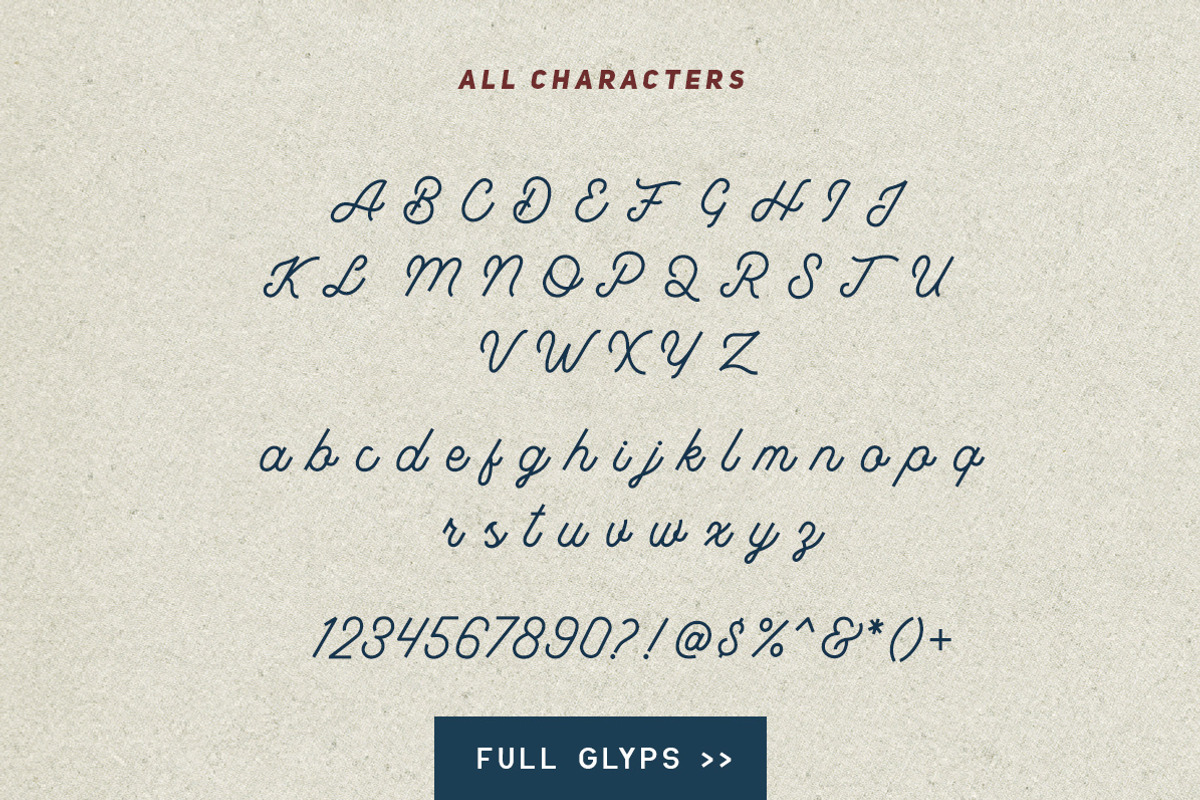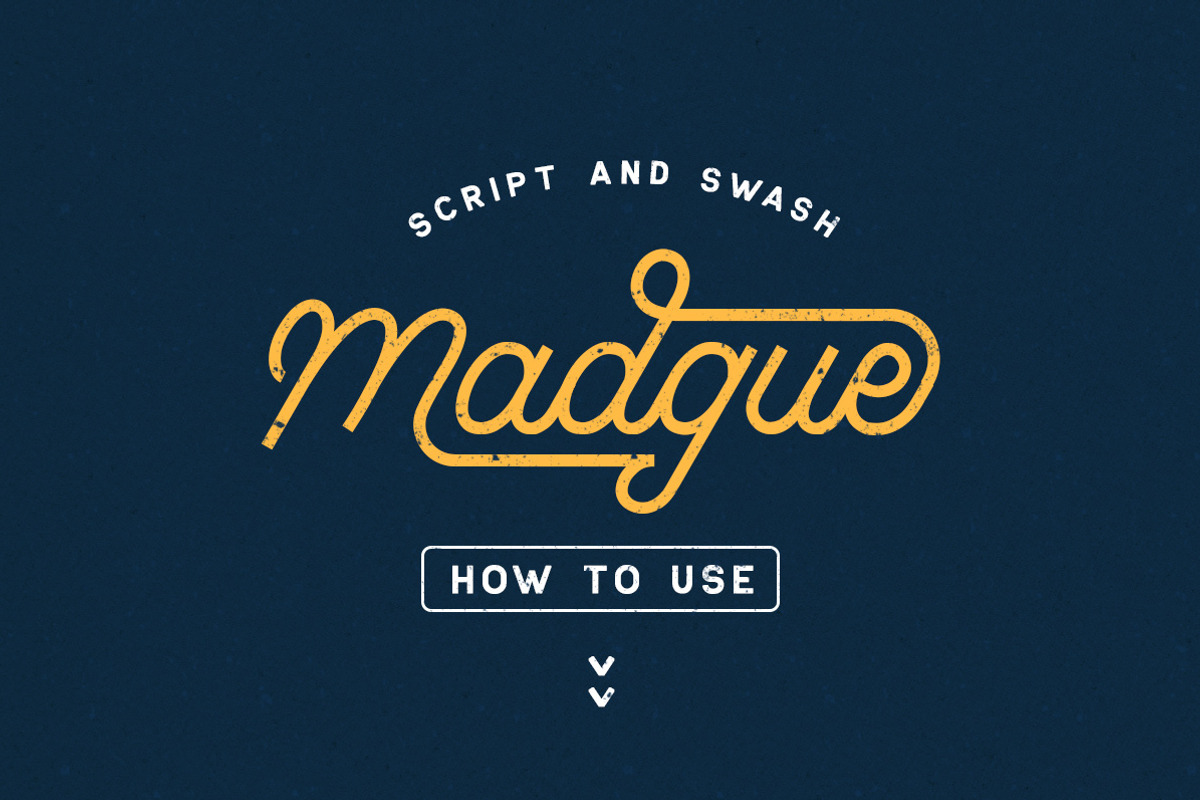
Madgue - Connected Monoline +EXTRAS
Introducing, Madgue, a connected monoline!
This is unique monoline for you. You can use this font for making an awesome logo or whatever you want. Also this font contain ligatures, so many stylistic alternate , swash. This font is also support multi language.